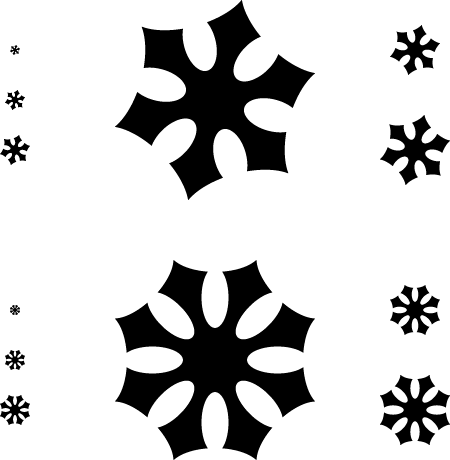
The Society of Typographic Aficionados is organizing Font Aid VI: Aster Affects — a project uniting the typographic and design communities to raise funds for Red Cross relief efforts after the events of Hurricane Sandy.
The project theme will be represented in a typeface consisting entirely of asterisks.
Why the asterisk?
An asterisk can denote something that requires attention — and an event of this magnitude and impact certainly deserves some attention. The asterisk can also provide *emphasis* to important information amidst fields of plain text. The root of the word comes from the Greek astēr or “star” - signifying hope and light. In computer terms, it’s a wildcard character … and hurricanes are certainly wild and unpredictable.
Ashton Kutcher Affects?
Awesome! I'll try to have something done...
So, you want the asterisks to descend and fill the em, as opposed to a normal asterisk sized and aligned for cap/ascenders, with a normal proportion (25% of the em), below the baseline.
Have I got that right?
In practice they [have to] scale everybody's work anyway.
Great idea BTW - I'm on it too!
This glyph from an unfinished typeface immediately came to mind; from my typically abundant artboard flotsam...
how does making an all asterisk font help Sandy victims exactly?
Did you read the history?
The money from sales of the font goes to help the victims.
Nice one Brock!
Here's mine (although still in tweakage mode), I hope my lighting bolt theme is acceptable...
brockfrench, that's a sweet asterisk! I particularly like the way that there are two implied rotated squares sitting on top of each other, creating tension between the rigidity of the squares and the fluidness of the arms.
5star, I like the lightning bolts in your design. I also picked up on the storm theme, using raindrops in my asterisk. I also made a version where one of the "petals" is an extra big raindrop pouring out. Which do people like better?
Thanks Neil, Stephen; looking good.
It's going to be interesting to see the variations in the number of points on all of these asterisks.
Stephen (sgh), the asymmetrical one is more interesting, and in my opinion the better idea too. It would need a bit of tweaking, though. Maybe you can make a progression in size of the drops.
I like the top one just fine... Maybe submit both and let them sort it out.
“Ashton Kutcher Affects?”
@ryan — Good lord, I hope not.
“So, you want the asterisks to descend and fill the em […] Have I got that right?”
@david — Yes, that’s correct. We’ll be treating the asterisks more like dingbats than their typographically correct parents. However, since we’re producing the final face as OpenType, we could provide a stylistic set which sizes and positions the glyphs as per usual … I kind of like that idea, actually.
The examples you’ve shown so far are wonderful.
I made this for my twitter and forum avatars, would this be acceptable?
It's very pretty, and meaningful.
The narrow gaps might suffer at small sizes.
I submitted this one to SoTA. I read a note on Wikipedia that said the original asterisk had seven arms. Citation is apparently needed to back up that claim, but it got me wondering how a seven-armed glyph would look.
Here's what I submitted:
And here's what I said:
I had the great fortune of living in New York City this past summer while I studied type at Cooper Union's Type@Cooper program. Like many people, the city is full of my friends and family. When I think about Hurricane Sandy, I am brought to the idea of 'balance.' It has affected the balance of so many people's lives and daily routines. And, the hurricane itself was brought on by a great imbalance in our climate. Many of those affected will return to their 'normal' quickly, while others will have to find a completely new balance. My asterisk was based off of an 'unbalanced' rectangle, repeated 6 times.
Thanks for noticing, Riccardo!
Here are the two variations:
It started off as an asterisk. Then it was sucked up and spit back out by this great big gritty giant vortex.
Like Hurricane Sandy, the Frangipani (Plumeria) originates from tropical and subtropical Americas. When you twirl a single Frangipani flower into the air, it will whirl off like a flying spinning top until it hits land.
Brian, nice. The filled one.
Thomas, these all look like shuriken to me.
Top 3 for me so far is:
dezcom
timd
the_adventure
(in no particular order)
I like the filled one; how would it look rotated clockwise by one position.